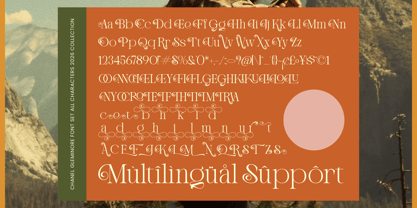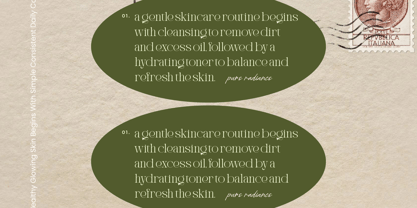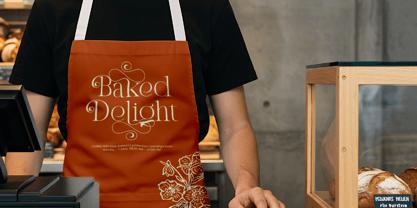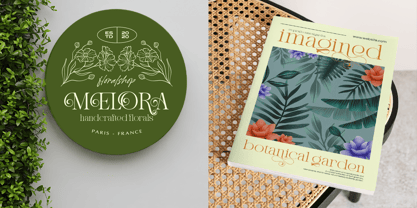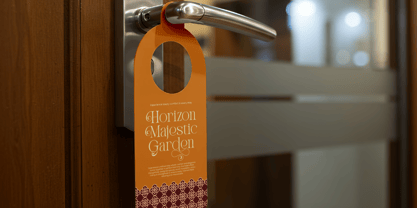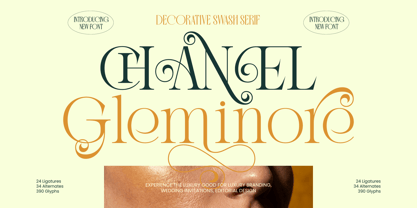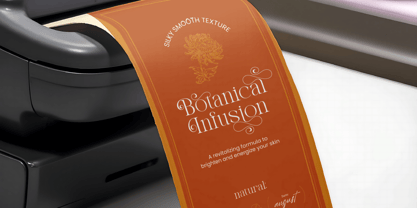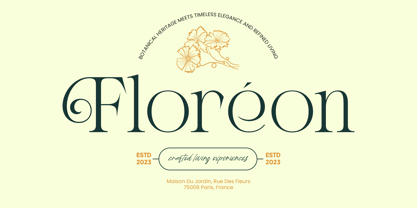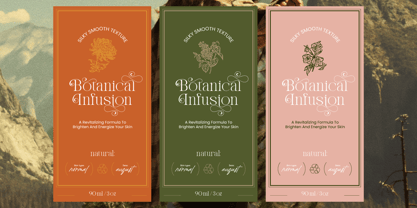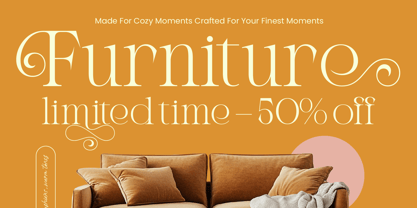
Chanel Gleminore
by Timelesstype Studio
The Chanel Gleminore Font Family was designed by Heru Utama Putra and published by Timelesstype Studio. Chanel Gleminore contains 2 styles and family package options. More about this family
Chanel Gleminore – Decorative Swash Serif. This typeface embodies sophistication and classic charm, featuring exquisite swashes and dramatic ligatures that breathe life into every character. Its high-contrast strokes and fluid curves create a rhythmic visual flow, making it an essential tool for designers seeking to convey prestige and unparalleled style in a modern landscape. Global accessibility meets artistic brilliance in this meticulously crafted typeface. With its extensive multilingual support, Chanel Gleminore – Decorative Swash Serif adapts seamlessly across global markets, making it incredibly versatile for international projects. This comprehensive glyph set ensures that your brand message remains consistent and impactful, regardless of the linguistic context, providing a cohesive visual identity for global audiences.